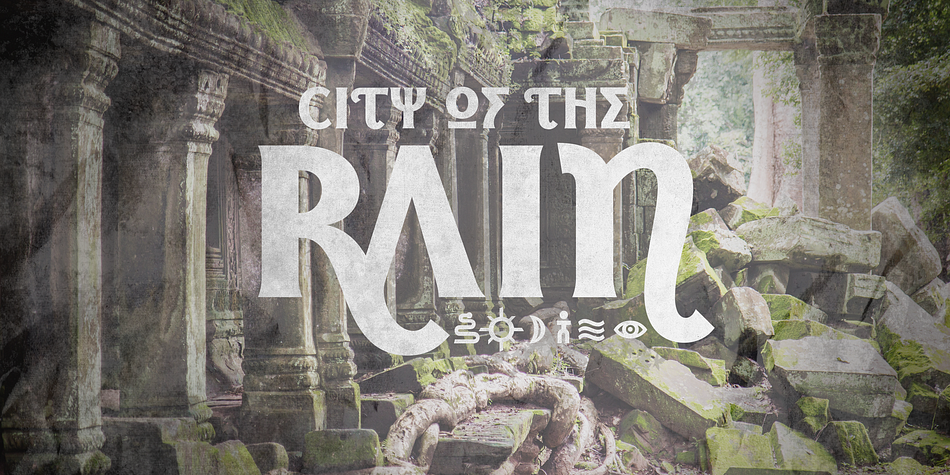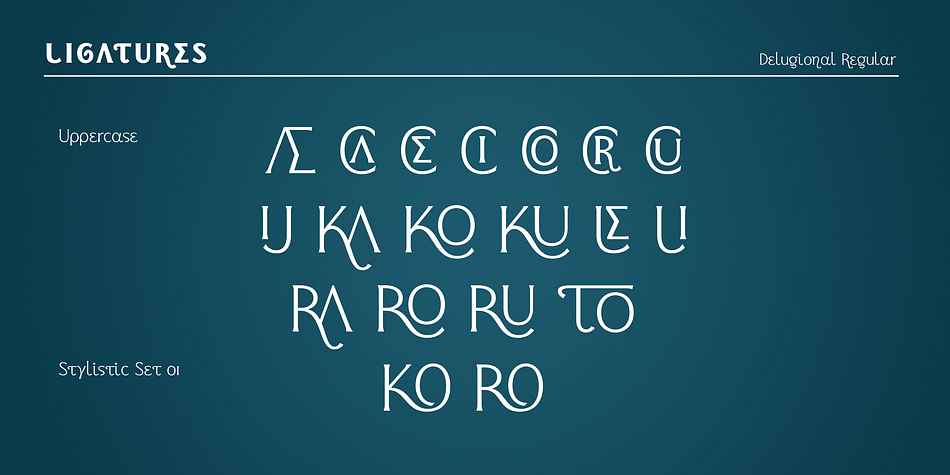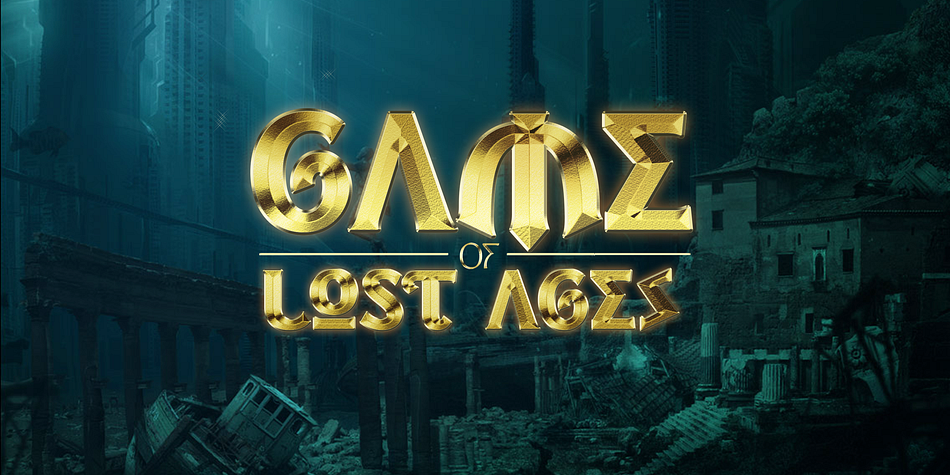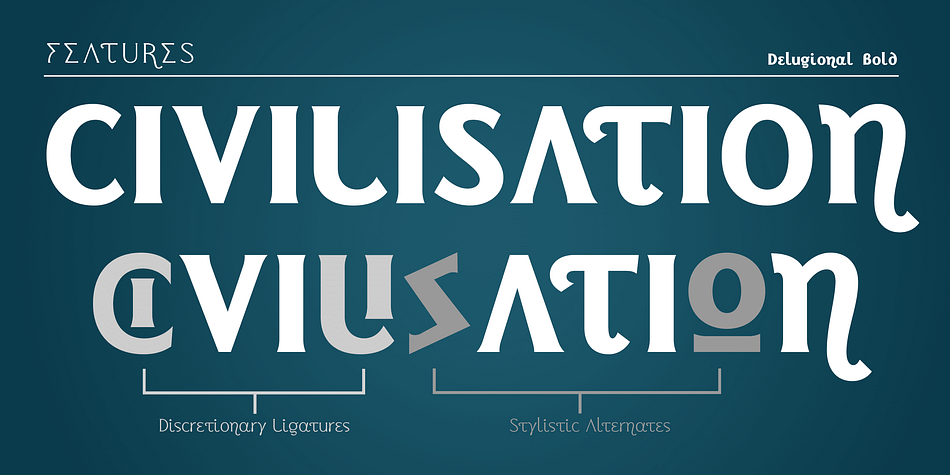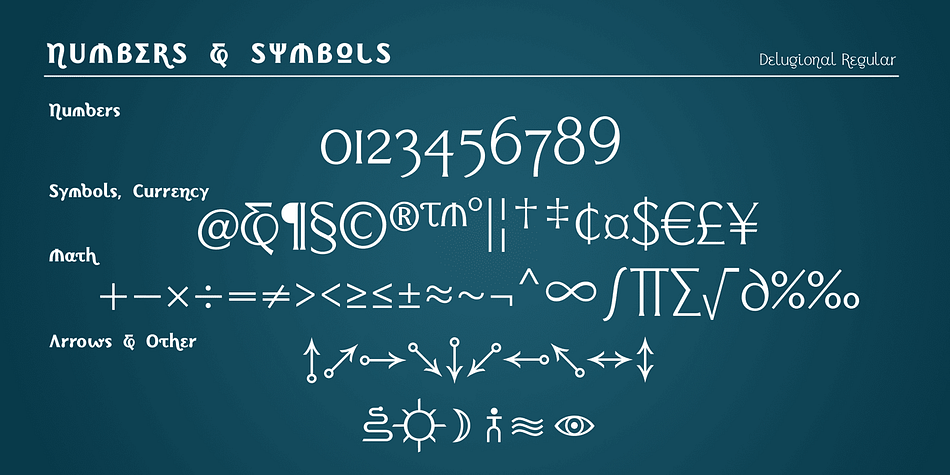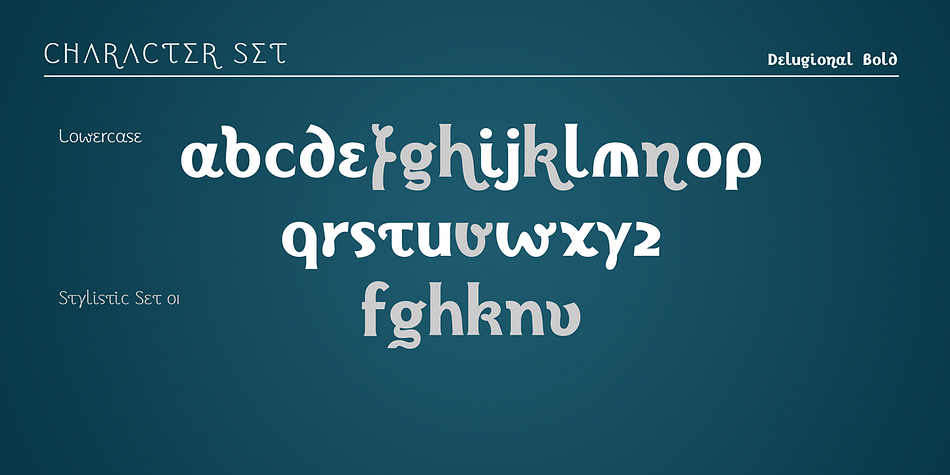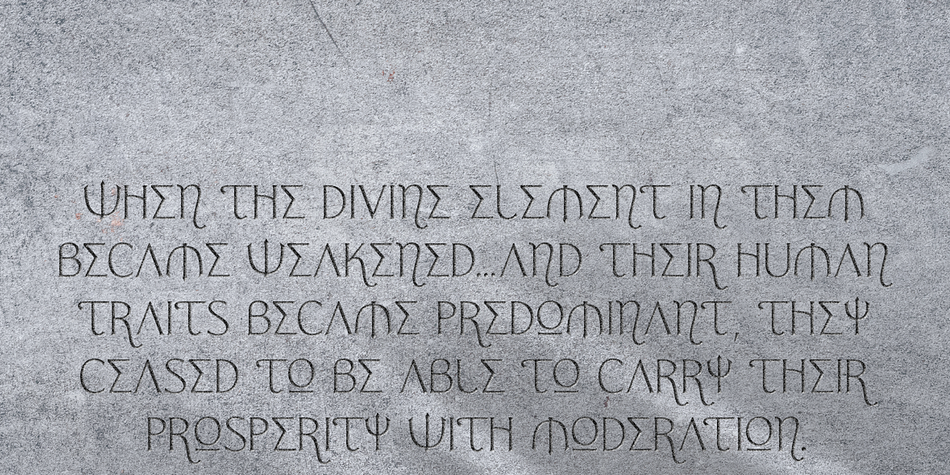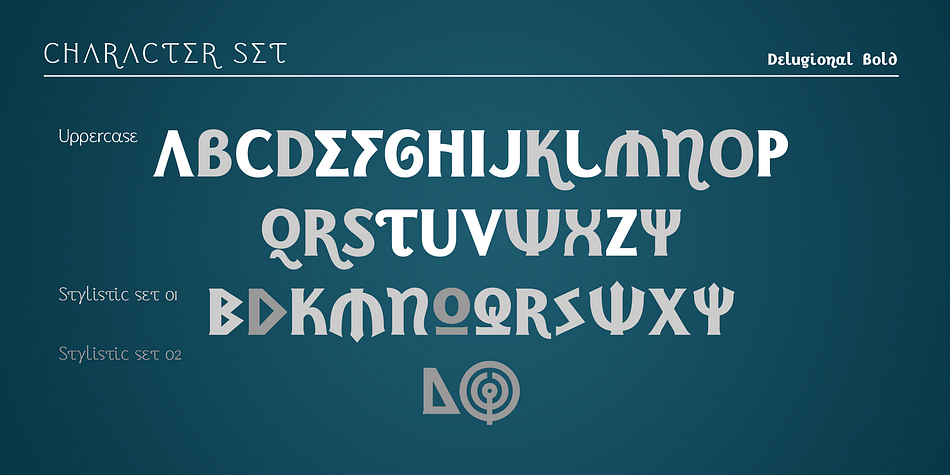
Delugional
Designed by Roland Hüse, Delugional is a display and exotic font family. This typeface has two styles and was published by Fonts by Roland Hüse.
Delugional is an Atlantis theme typeface, it’s character set is an imaginary alphabet inspired by Greek style scripts mixed with Classic Latin. This font is a display font family of two weights, Regular and Bold. It can be used for various creative/mythological and fantasy theme projects from book covers to games or movie titles. There are some OpenType features such as Stylistic Alternates and Discretionary Ligatures along with some extra symbols like sun, moon, snake and the stylised map of Atlantis in place of stylistic set 02 of uppercase “O”.